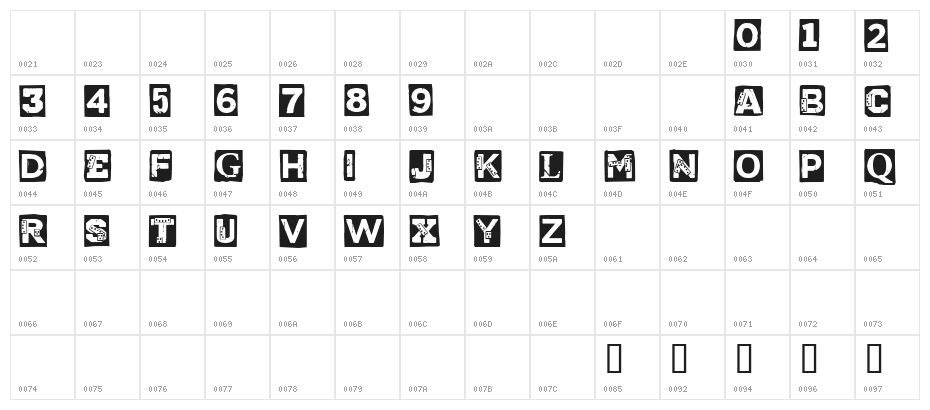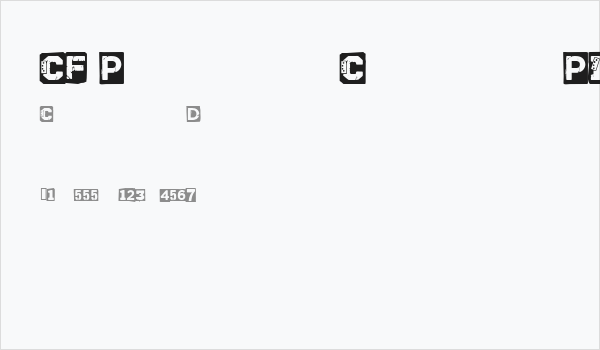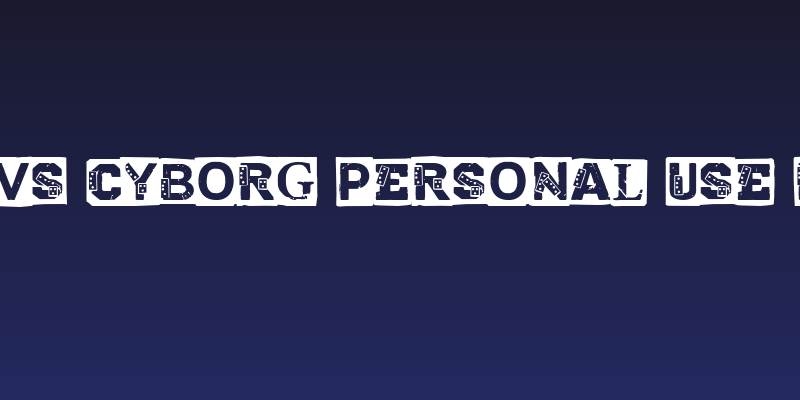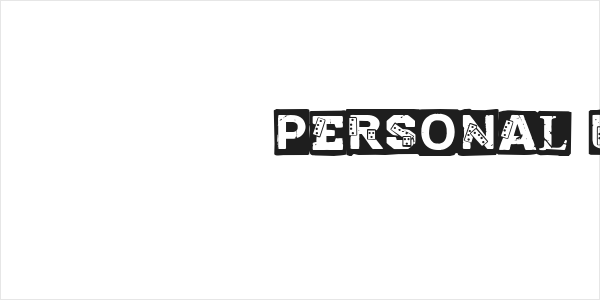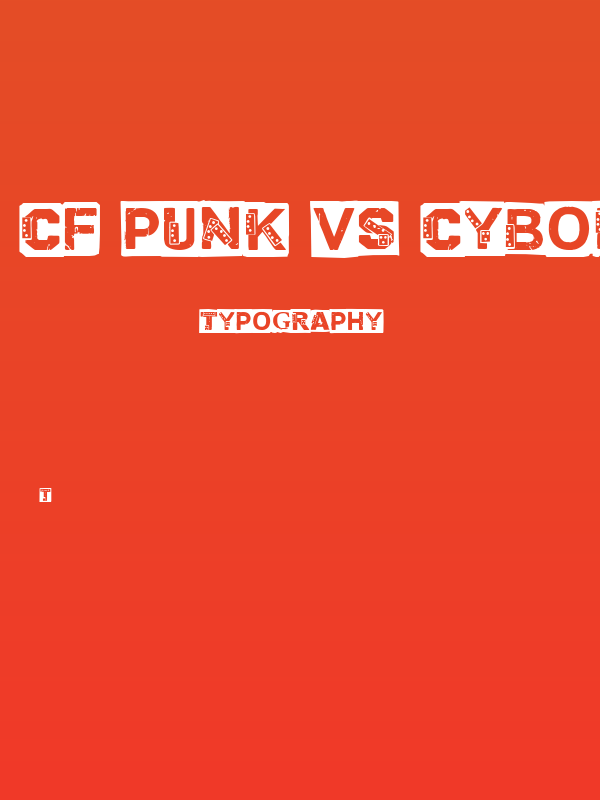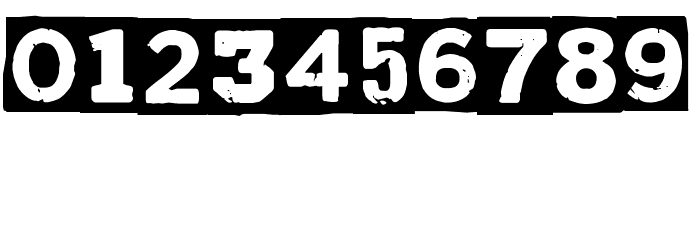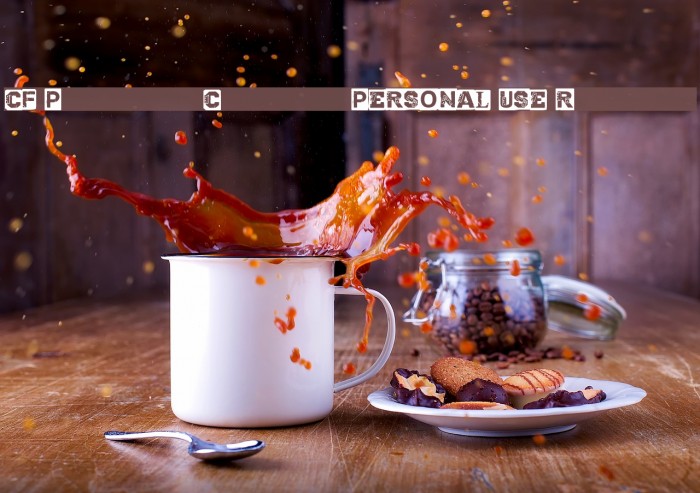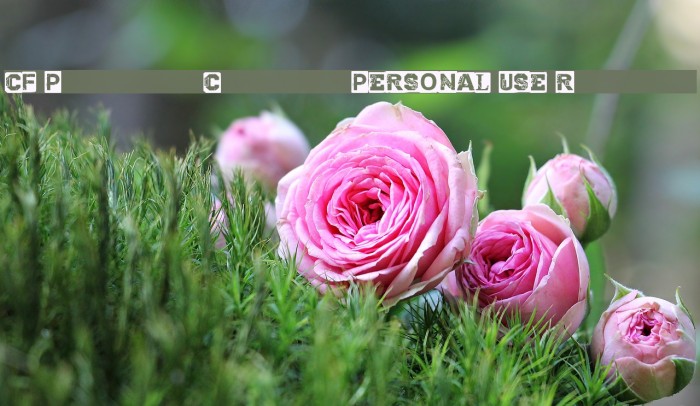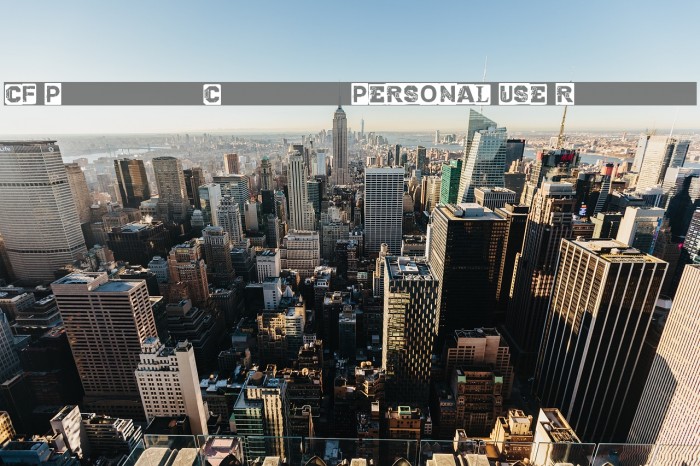
CF Punk vs Cyborg PERSONAL USE Regular Font
CF Punk vs Cyborg PERSONAL USE Regular Description
This font features a bold and edgy design, combining elements of punk and futuristic cyborg aesthetics. Each character is uniquely styled with mechanical and industrial motifs, creating a sense of depth and texture. The letters are uppercase and numbers are included, each with a distinct, rugged appearance. The font has a strong presence, making it ideal for projects that require a bold statement. Its design is reminiscent of a dystopian or cyberpunk theme, with intricate details that suggest a fusion of technology and rebellion.
| Overall Style | Futuristic, Industrial |
| Proposed Projects | Ideal for sci-fi posters, video game titles, and edgy branding projects. |